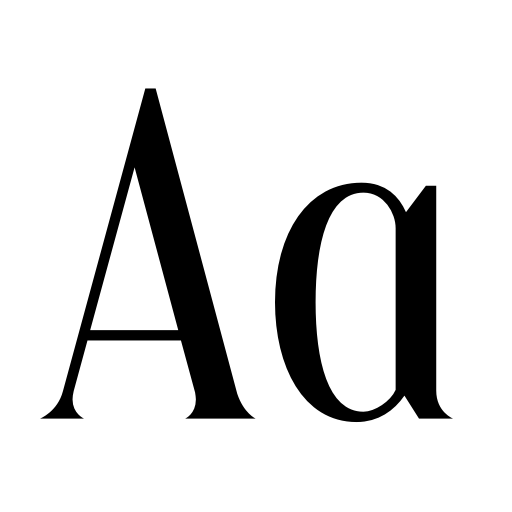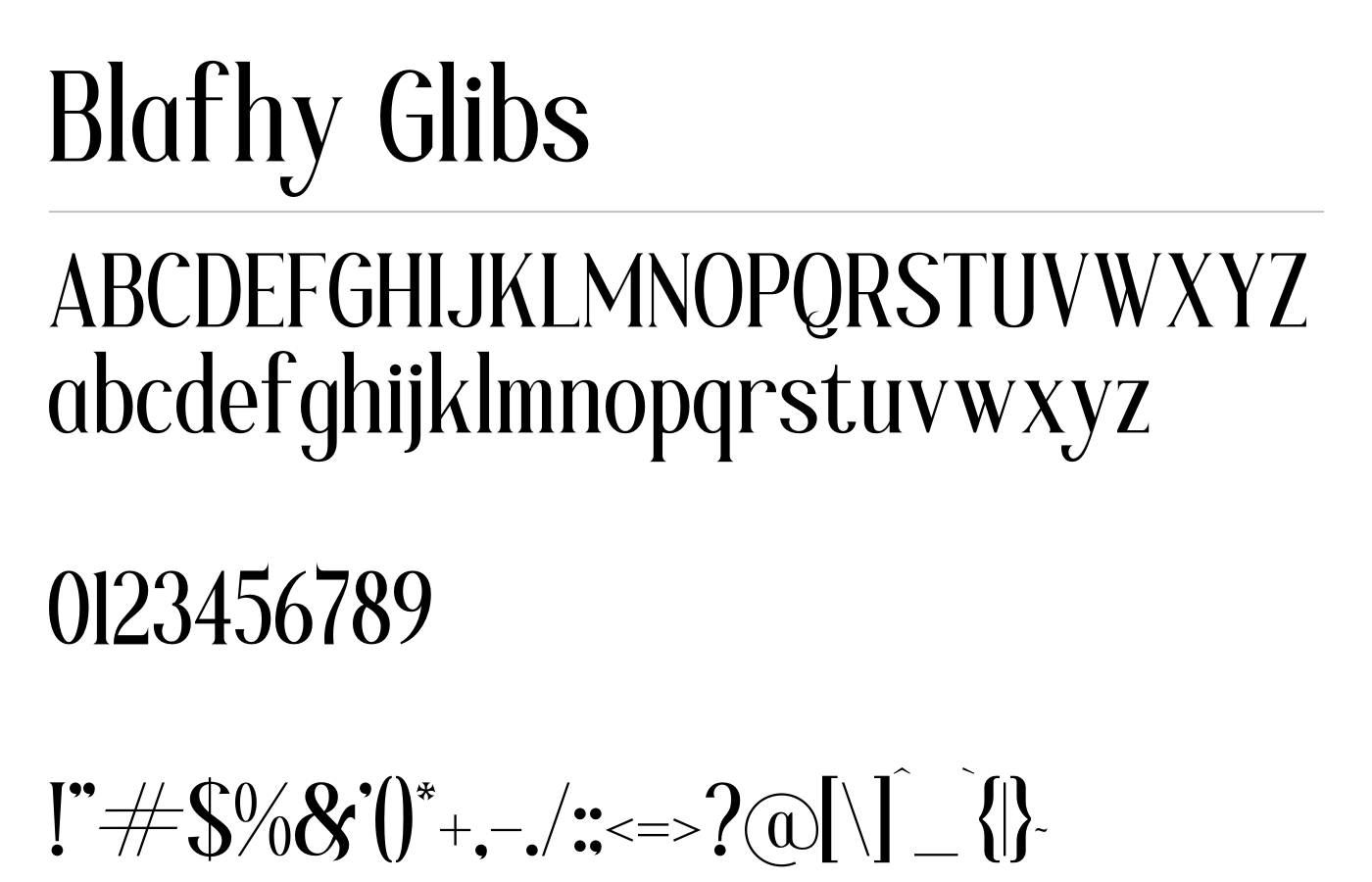
Blafhy Glibs is a stylish serif font with a slender, elegant design characterized by high contrast between thick and thin strokes and delicate, bracketed serifs. Its tall, narrow letterforms and unique details like the single-story lowercase 'a' and the distinctive tail of the 'Q' give it an upscale, refined feel perfect for fashion branding, editorial headlines, and sophisticated logos. This font works well where a graceful yet modern touch is needed to convey luxury and exclusivity.
Blafhy Glibs Font